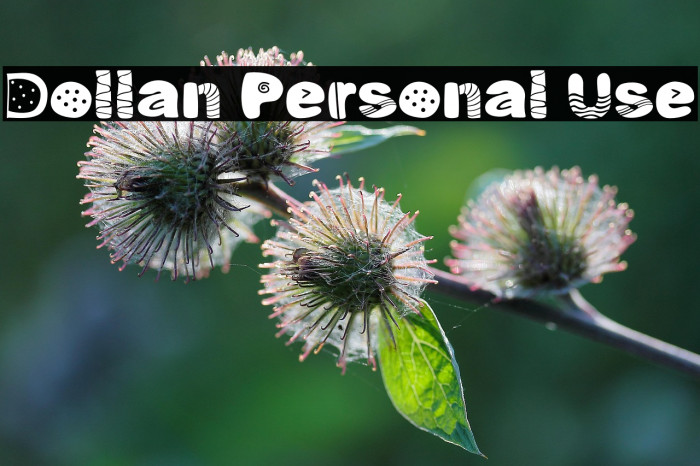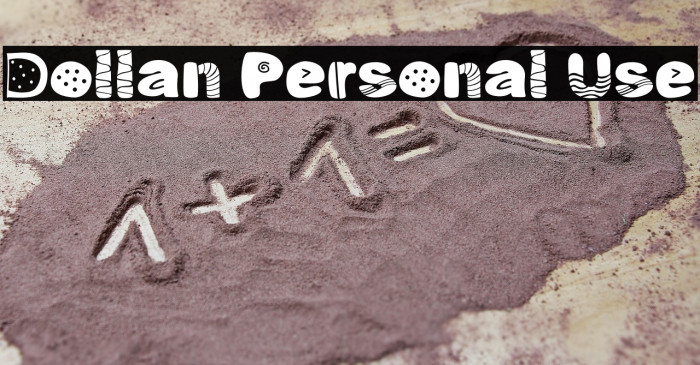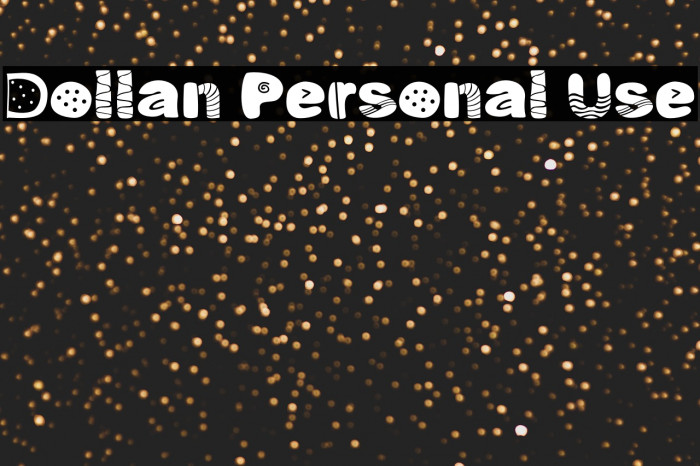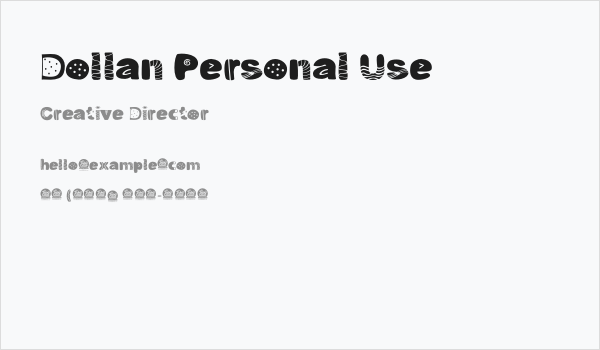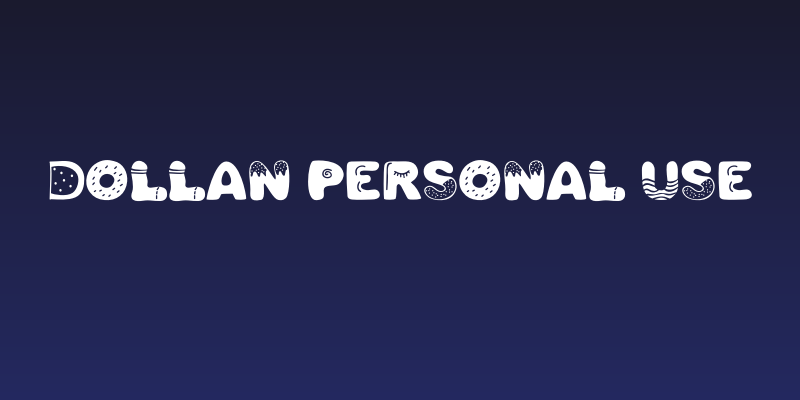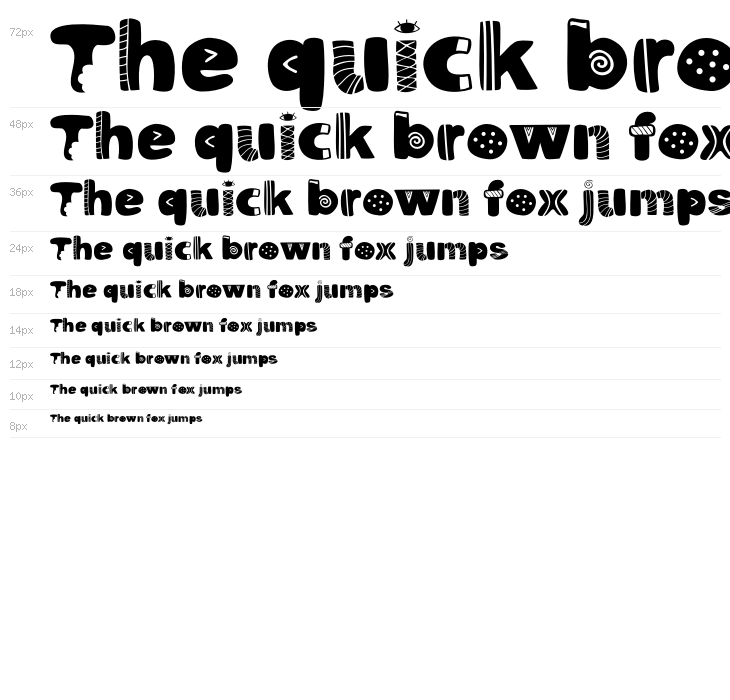
Dollan Personal Use Font
Dollan Personal Use Description
This playful and whimsical font features a variety of decorative elements within each character, creating a lively and engaging appearance. The uppercase and lowercase letters are filled with patterns such as stripes, dots, and unique shapes, adding a sense of fun and creativity. The bold and rounded forms give the font a friendly and approachable look, making it ideal for projects that require a touch of personality and flair. The characters are well-spaced, ensuring readability while maintaining their decorative charm. This font is perfect for designs that aim to capture attention and convey a sense of joy and imagination.
| Overall Style | Whimsical, Playful |